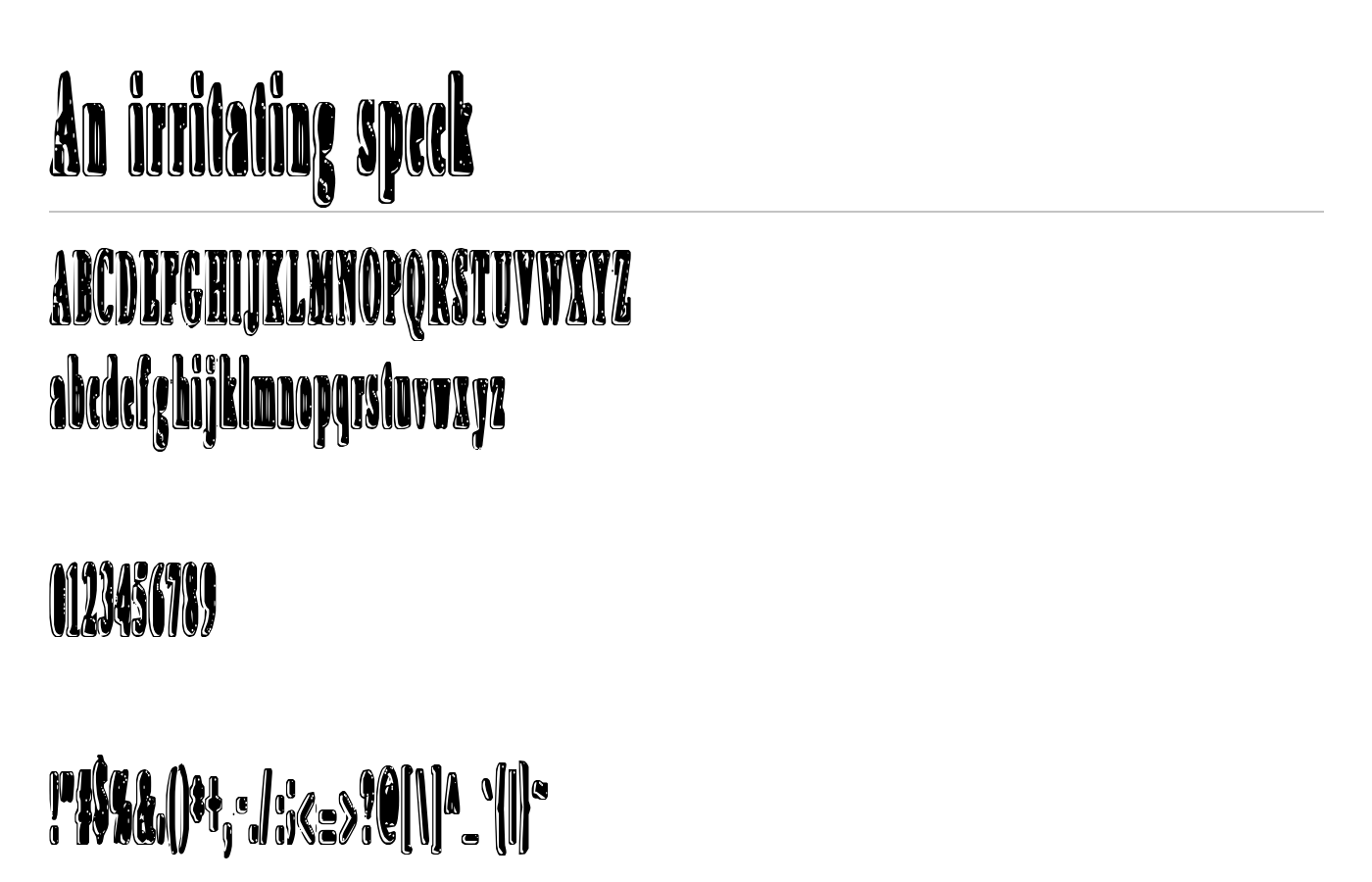
An irritating speck Font is a condensed serif typeface with a tall, narrow structure and high contrast between thick and thin strokes. Its distinctive texture features uneven, speckled patterns that create a quirky, vintage vibe, making it ideal for attention-grabbing headlines or artistic projects that want a bold, slightly unsettling character. This font works well where uniqueness and personality are key, such as posters, branding for creative ventures, or eye-catching editorial covers.
An irritating speck Font